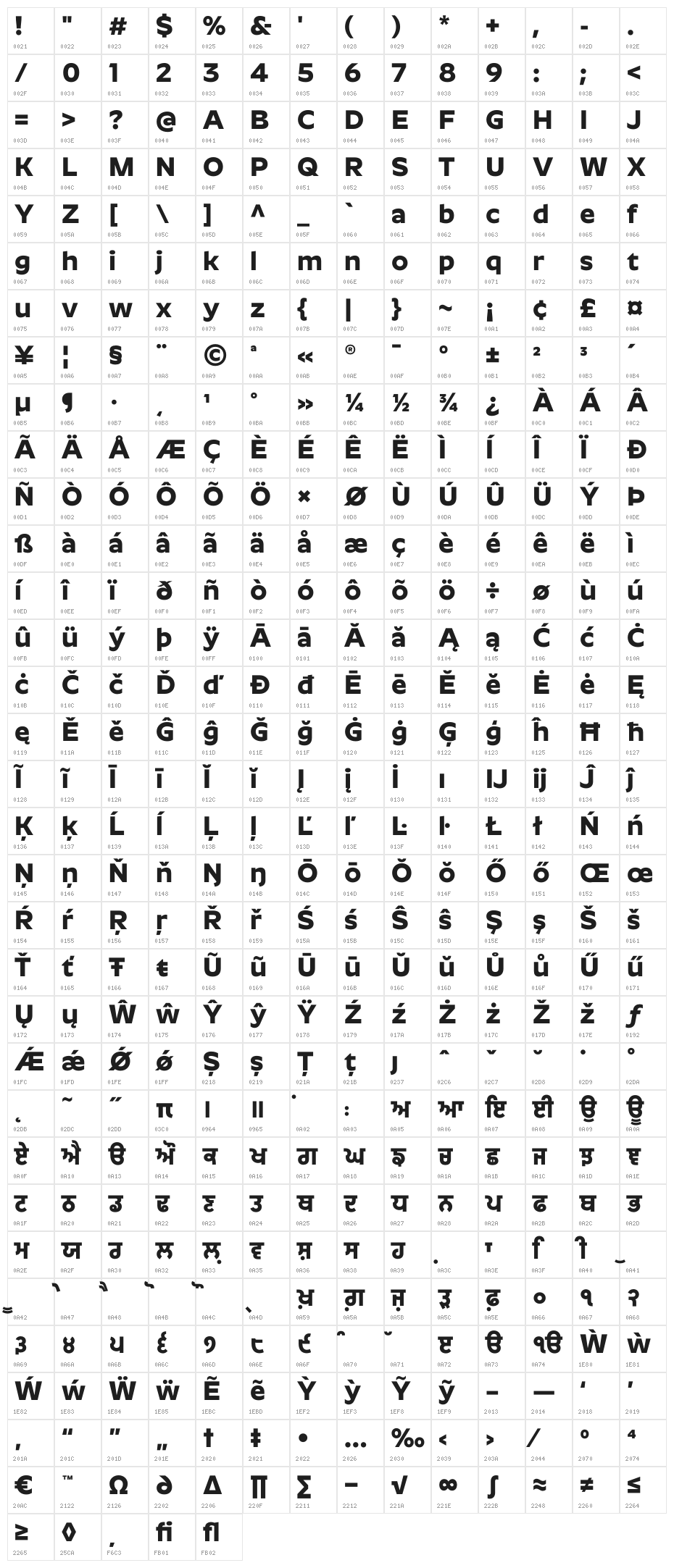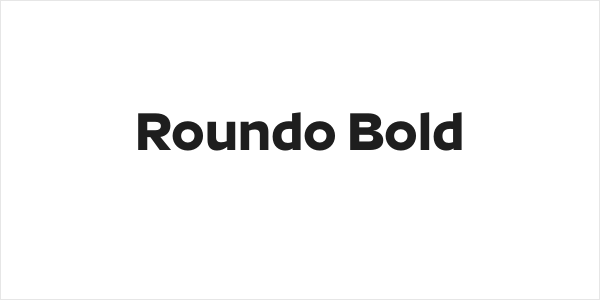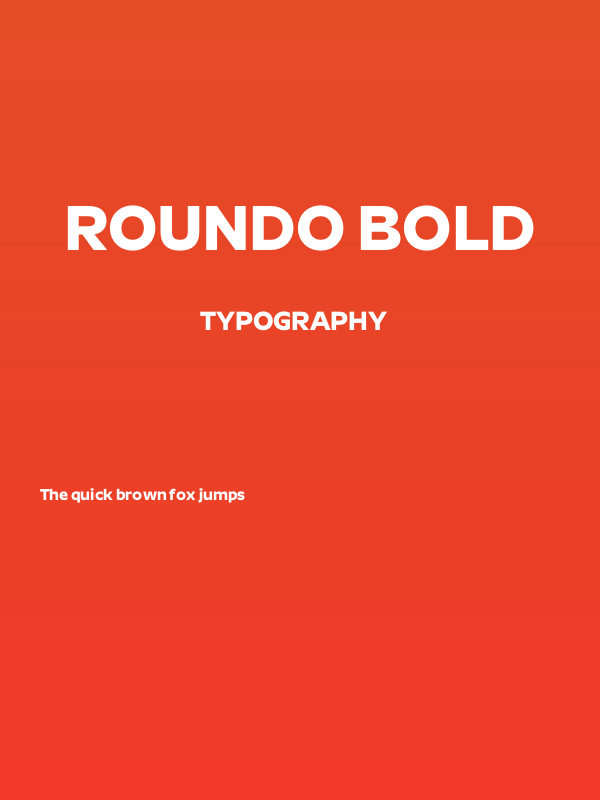
Roundo Bold Font
Roundo Bold Description
This font features a bold and robust design with rounded edges, giving it a friendly and approachable appearance. The characters are evenly spaced, providing a clean and modern look. The uppercase letters are strong and impactful, while the lowercase letters maintain a consistent weight, ensuring readability. The numerals are clear and distinct, making them suitable for various applications. Special characters are well-integrated, maintaining the overall aesthetic of the font. Its boldness and rounded style make it versatile for both digital and print media.
| Proposed Projects | Ideal for branding, advertising, headlines, and digital media where a strong yet friendly impression is desired. |